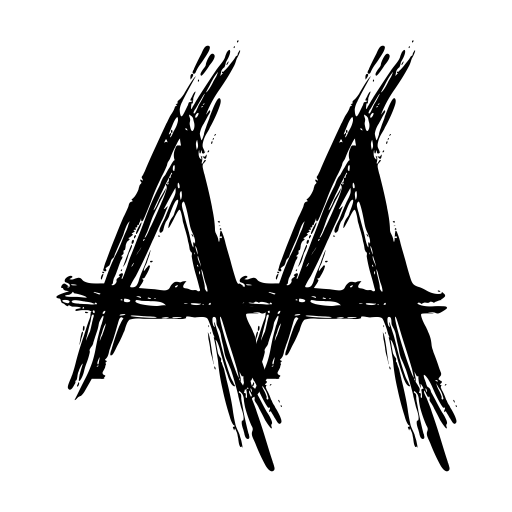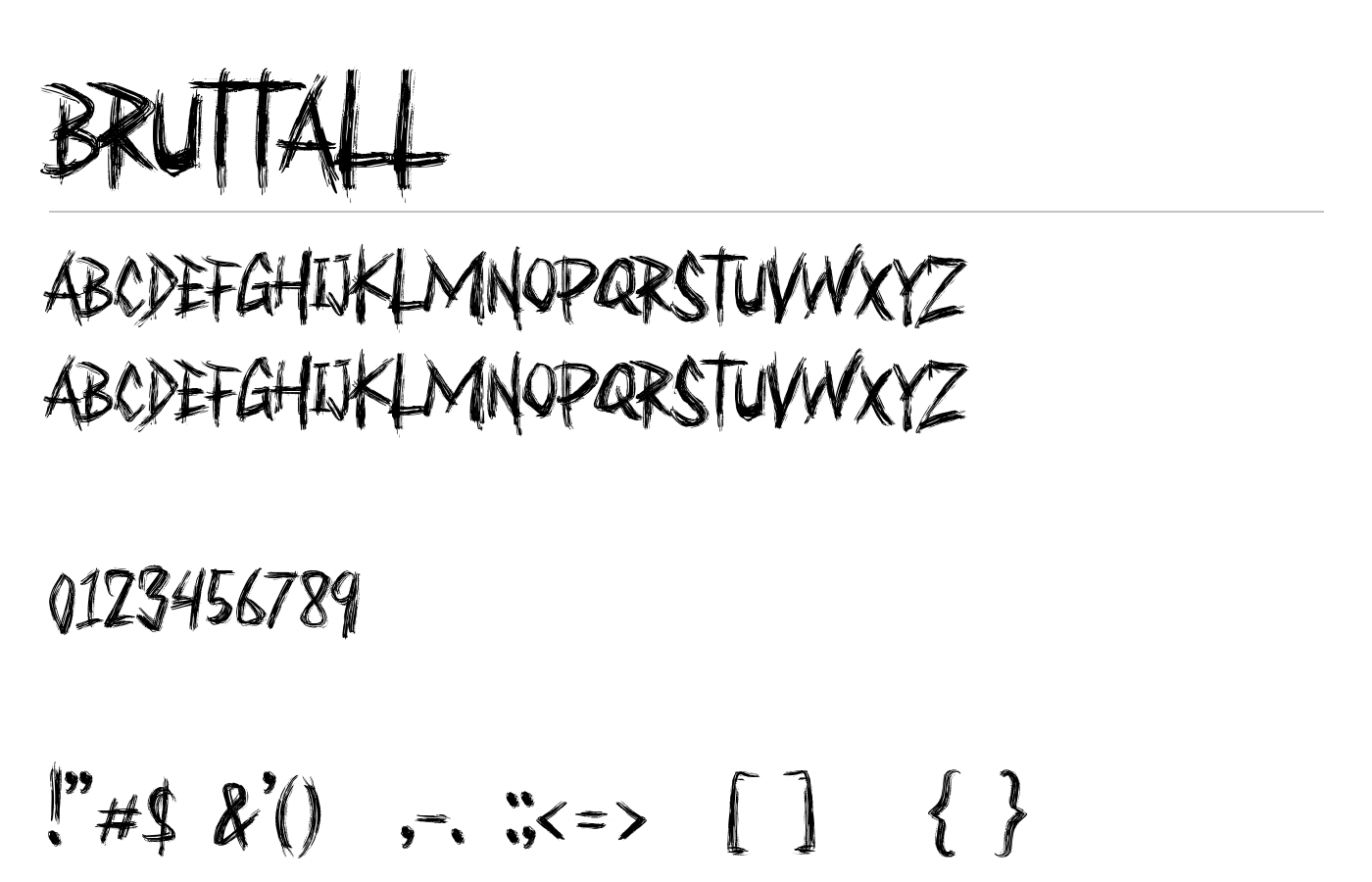
Bruttall is a bold, hand-drawn sans serif font with a rough, distressed texture that gives it an edgy and raw appearance. Its irregular strokes and angular letterforms convey a rebellious and dynamic personality, making it a great choice for designs seeking a gritty, expressive vibe. This font works well for posters, music branding, and creative projects that want to stand out with a bold, unconventional style.
Bruttall Font
About Bruttall Font
| Font family | Bruttall Font |
| Designer | Muhammad Sirojuddin - Jogjakarta |